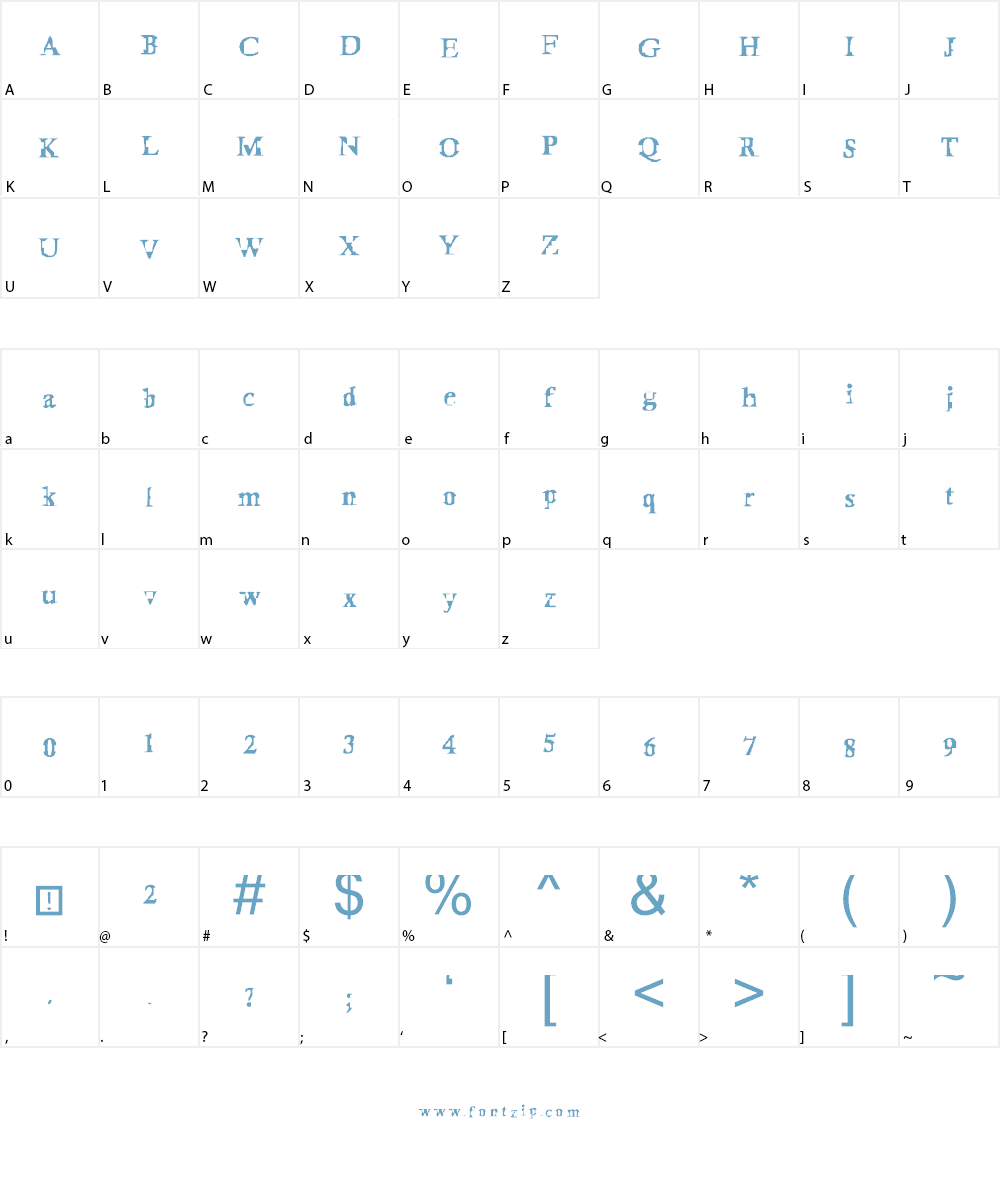
Appmia HEX font was created for getting mobile apps more magic and unique. Everyone likes unusual things. So it was decided to find out how the new font will impact to mobile apps of Appmia company.